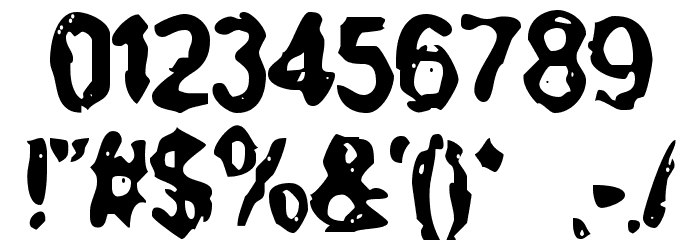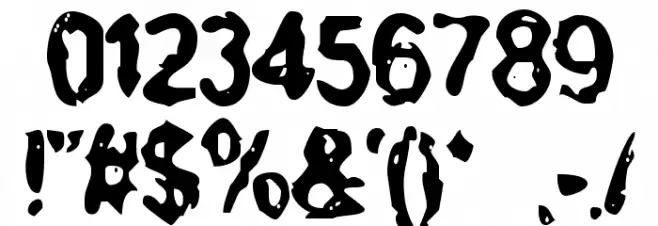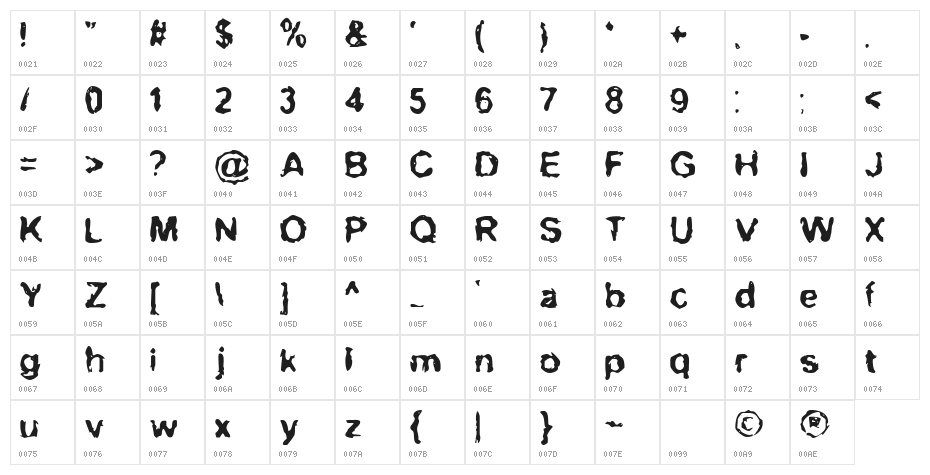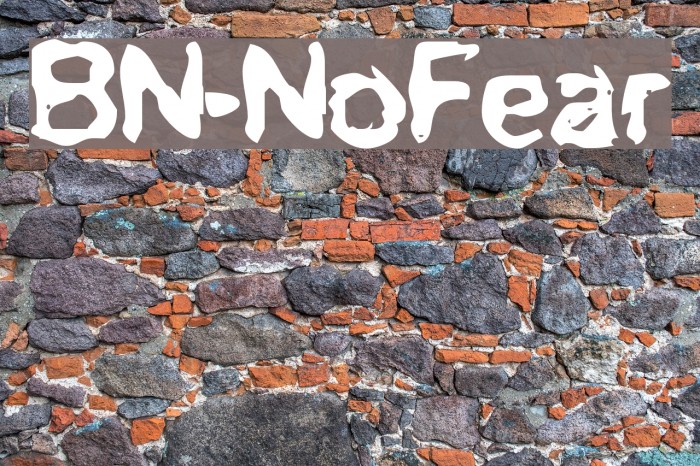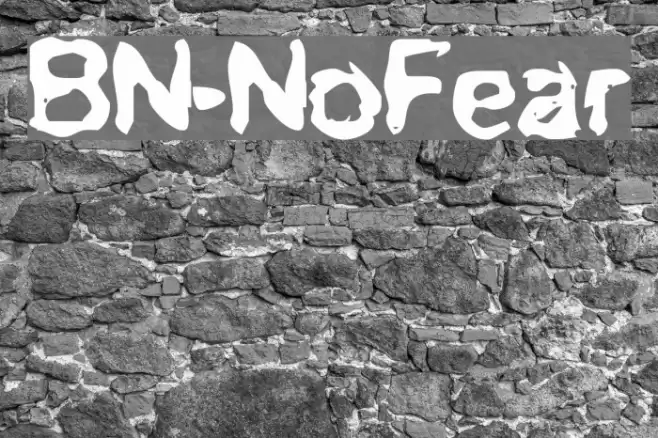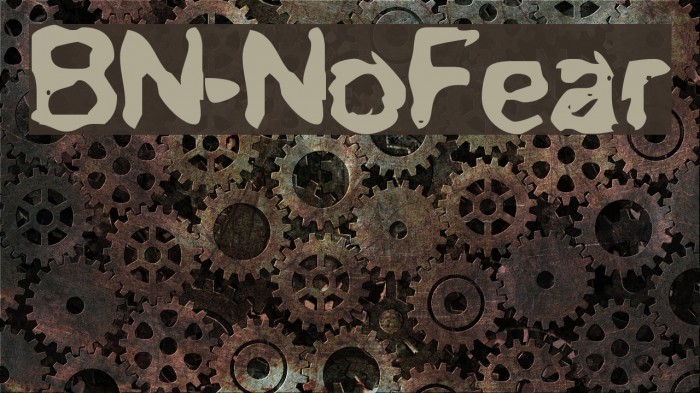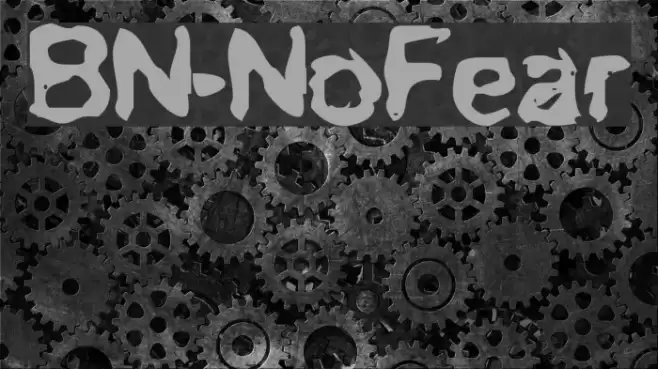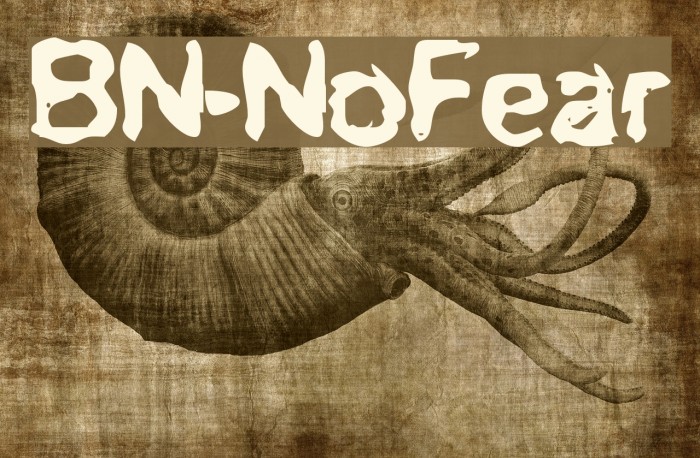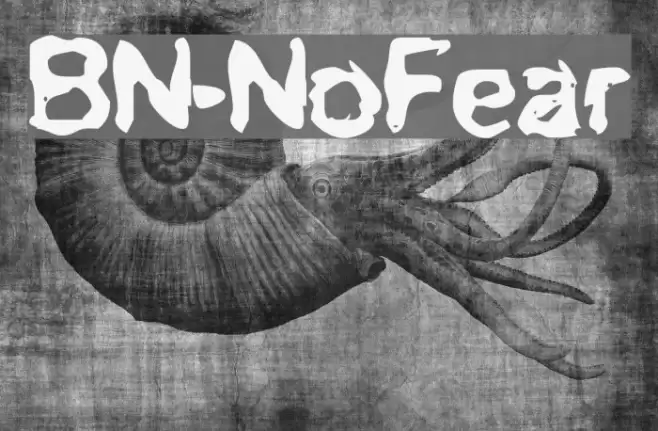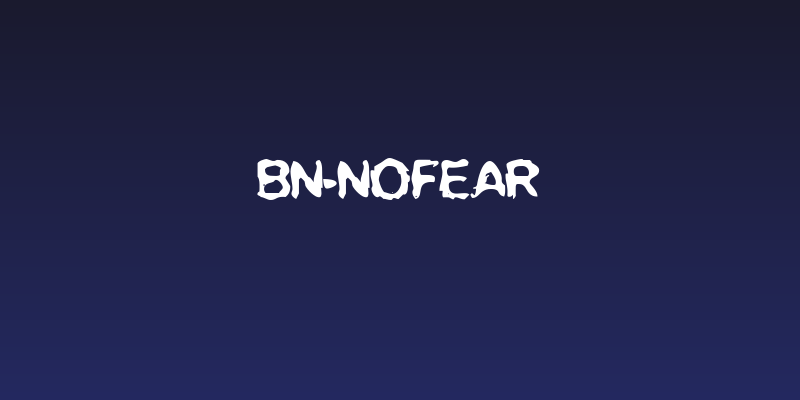
BN-NoFear Font
BN-NoFear Description
This font features a bold and dramatic style, characterized by its irregular, jagged edges and a distressed appearance. The letters are thick and heavy, with a rough texture that gives them a chaotic and energetic feel. The uppercase and lowercase letters maintain a consistent style, with exaggerated curves and sharp points that create a sense of movement and intensity. The numbers and special characters follow the same design principles, ensuring a cohesive look across all elements. This font is ideal for projects that require a strong, impactful visual presence.
| Proposed Projects | Ideal for horror-themed posters, edgy album covers, or rebellious branding materials. |